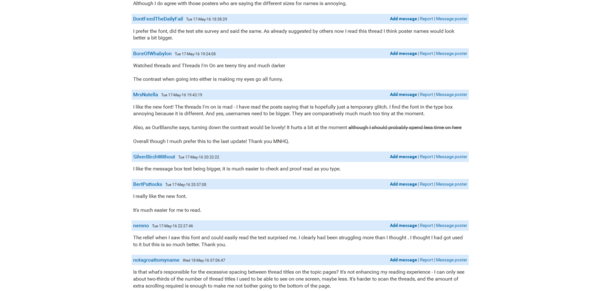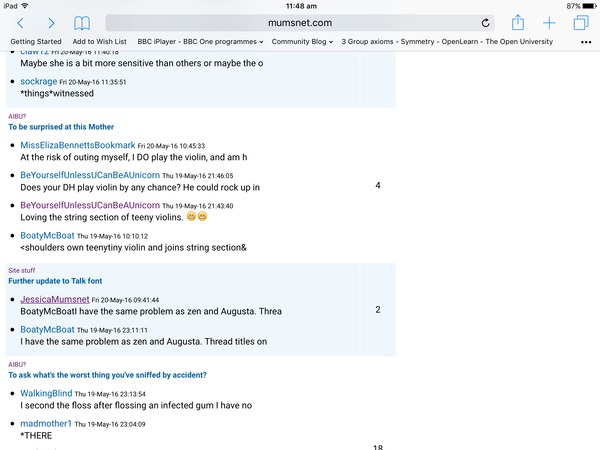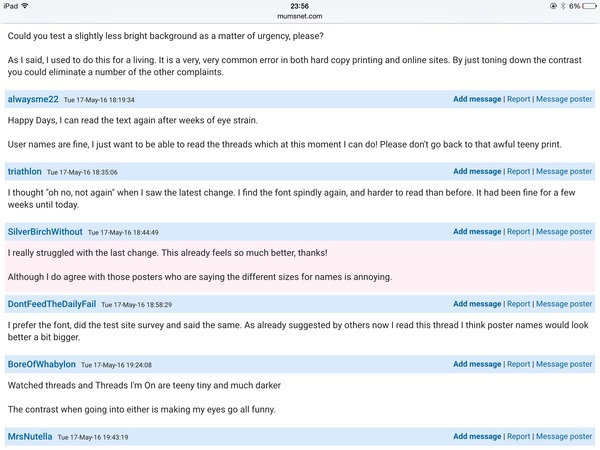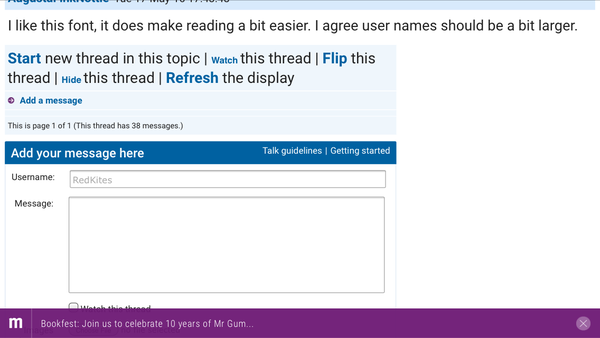
Further update to Talk font
Following a further round of user testing we are going to make another slight adjustment to the font on desktop Talk (no change to mobile). We are using Roboto font. It was size 14px and weight of 300. We’re going to increase it slightly to 15px and weight of 400 to make it slightly more readable. Plus we are very slightly increasing the line to make it feel just a little less cramped.
Obviously any change takes a wee while to get used to - and we're sorry to inflict more on you - but hopefully you'll get used to it very quickly and agree with the majority of testers that it's an improvement overall.
Thanks for clarifying Madhatter, TIO is being looked at.
We tried to reduce the number of font sizes starting with the premise that everything should be the same unless there was a reason to change. We've also tried to keep to just three different sizes on the main section of the screen.
Certain pieces of information have different levels of importance to users when reading and need to take a backseat to allow for a decent flow. In the case of threads the main focus is usually reading the posts themselves so elements like time and date are the smallest in size with username being the 'middle' size.
Start, flip and refresh are noticeably bigger than watch or hide. Unless that's intentional?
Hmm no RedKites that doesn't seem right, attached is a screenshot of what we'd expect you to see. Are you seeing something different?
IMHO, the names should be the same size as the thread text.
The person saying it is just as important as what's being said.
I'm not fussed if the time/date stamps are small, but the small text name looks wrong to me. :)
What the heck is going on? Threads I'm On is in teeny font size, the size in the box when I type a post is larger and more spaced than previously and the typeface when I read threads is also different. It looks like a dozen different typefaces all thrown together in some kind of experiment.
You know, I thought some people were being a tad dramatic when they complained of headaches with the first font change but I totally understand now.
This to me is worse than the first change, not easy to read and already starting to feel migrainy.
I like it Blush
Is it just me that seems to have about 20 different typefaces all competing for attention on the same screen?
I started to like the old new one and it's changed again.
Grin No winning with some.
I am sure I will get used to this in time as well.
What is the reasoning about having to change all the fonts? I'm really curious as it makes no sense to me at all. I have always been of the mindset 'if its not broken why try to fix it' so I am wondering why MN needs to be 'fixed'.
If there is anyone at MNHQ who suffers from migraine (With Aura) could you please ask them to test this and get their opinion?
Thanks MadHatter - that's a fair point, we made usernames bold to distinguish them and increase visibility but we could do more.
Do other people feel that usernames should be larger?
Stillunexpected It sounds like it might not be quite right for you - can you send us details of what browser and computer you're using and a screenshot if poss?
On the main section of a thread there's only one typeface at three different sizes.
On the right hand column we do introduce a second typeface for some titles and add a condensed form of the main font for space saving use (e.g. buttons).
wombattoo · 17/05/2016 17:34
User names are far too small.
AugustaFinkNottle · 17/05/2016 17:43
I like this font, it does make reading a bit easier. I agree user names should be a bit larger.
squoosh · 17/05/2016 17:47
Too many fonts and too many sizes going on in the same page. The text in the 'message' box is too big.
JessicaMumsnet · 17/05/2016 17:49
@MTPurse
What is the reasoning about having to change all the fonts? I'm really curious as it makes no sense to me at all. I have always been of the mindset 'if its not broken why try to fix it' so I am wondering why MN needs to be 'fixed'.
MrsNutella · 17/05/2016 19:43
I like the new font! The threads I'm on is mad - I have read the posts saying that is hopefully just a temporary glitch. I find the font in the type box annoying because it is different. And yes, usernames need to be bigger. They are comparatively much much too tiny at the moment.
Also, as OurBlanche says, turning down the contrast would be lovely! It hurts a bit at the moment although I should probably spend less time on here
Overall though I much prefer this to the last update! Thank you MNHQ.